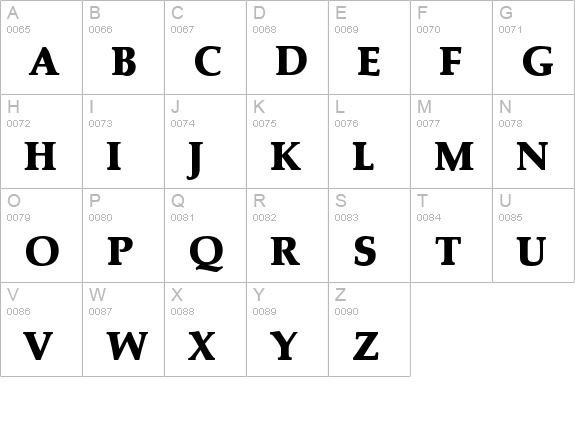
MarathonSerial-Heavy-Regular is a heavy, high-impact variant in the MarathonSerial typeface family \xE2\x80\x94 well suited to high-impact headlines, posters, and display advertising.
MarathonSerial-Heavy-Regular font is a bold and sturdy typeface designed for making a strong statement in your projects. With its heavy weight and regular style, this font exudes a sense of power and stability, perfect for headlines, titles, and branding materials. Its clean lines and modern look make it versatile for a wide range of design applications. Whether you're creating posters, logos, or website headers, MarathonSerial-Heavy-Regular font will stand out and grab attention. Best of all, this impressive font is available for free download at FontsMarket.com. Take advantage of this opportunity to enhance your designs with a high-quality typeface that will make a lasting impact on your audience. Download MarathonSerial-Heavy-Regular font today and elevate your projects to the next level.